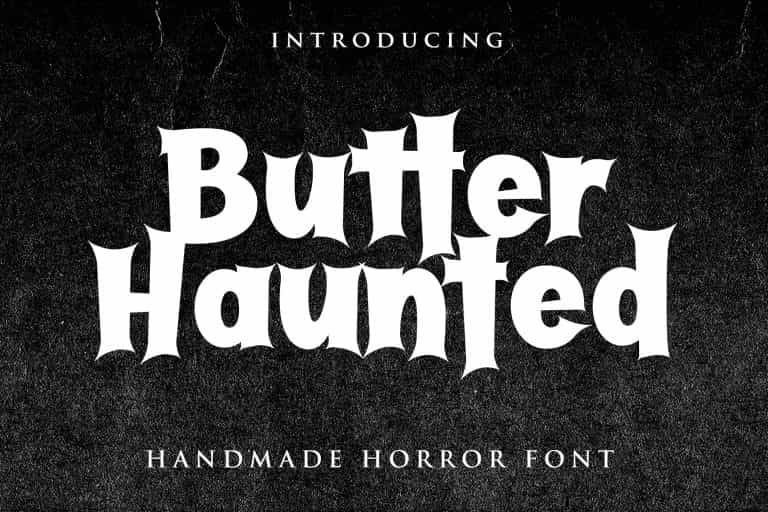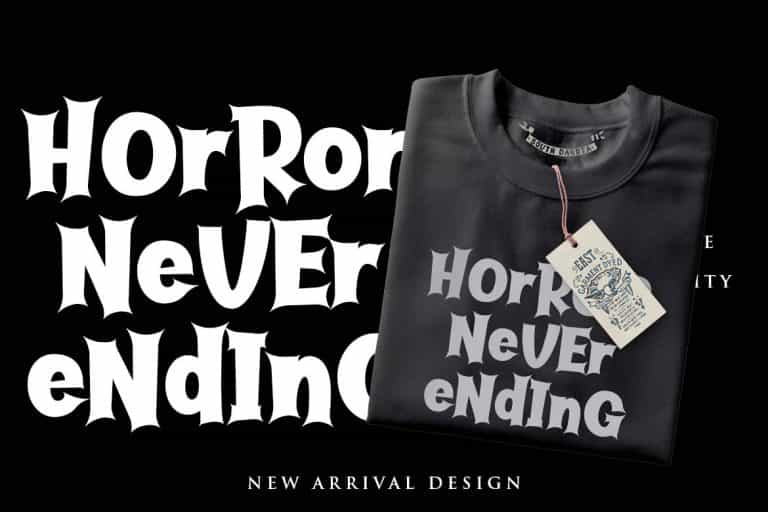
Butter Haunted Display Font
I’m so joyful to introduce you to an awe-inspiring horror typeface. Introducing Butter Haunted Font! Tt’s astonishing horror but deserted typeface. Butter Haunted designed by lettersiro. Butter Haunted is a cool horror font. You can use this font for every horror moment like Halloween, Dark Clothing, Horror Movie Poster, and etc..Components.